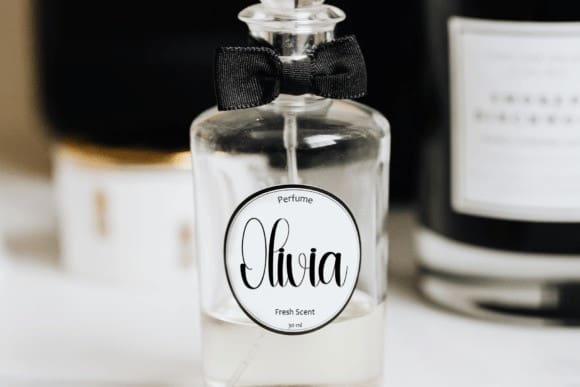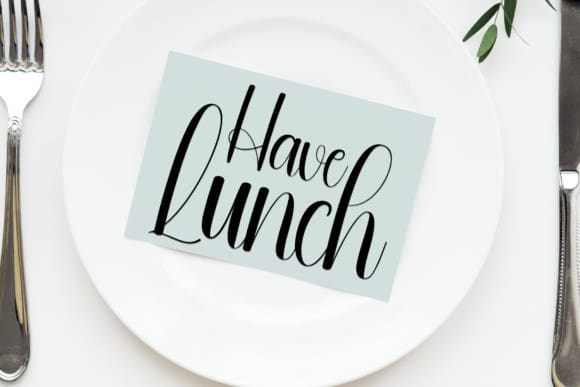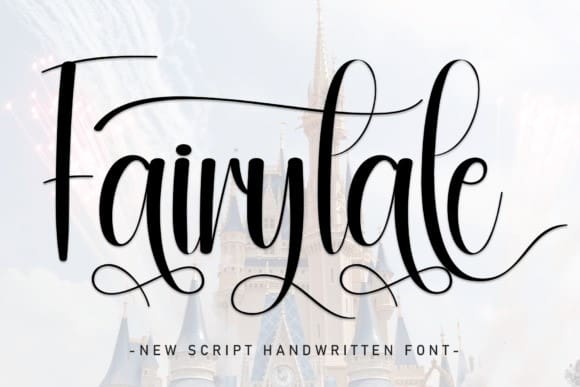
Fairytale Script Font
Fairytale Script Font is a sweet and friendly handwritten font. Fresh and casual, this font is ideal for writing wedding invitations, cards, or any other design that might need a lovely touch.